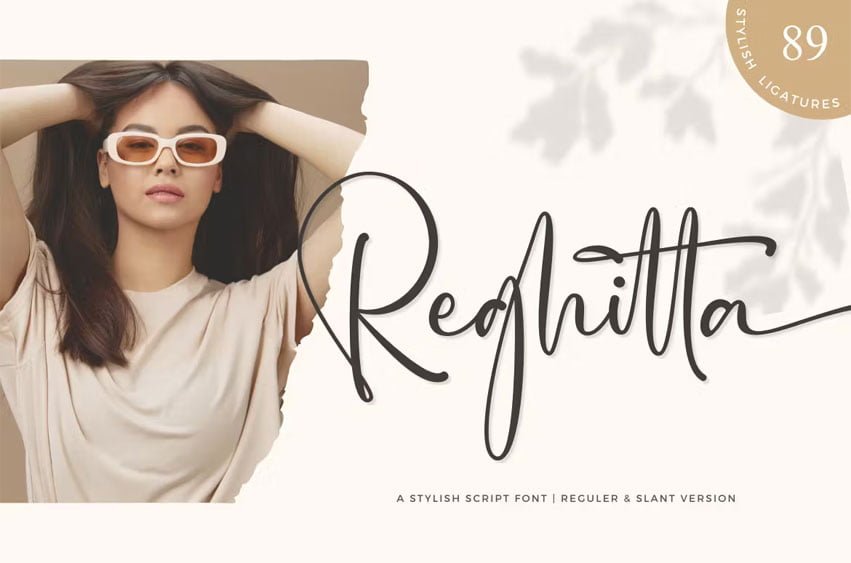
Reghitta Font is a stylish script font suitable for your design project needs, such as; wedding themes, valentine’s themes, social media posts, quotes, overlays on images, tagline logos, posters, print needs, website banners, and more.
- A set of uppercase and lowercase glyphs
- Number, symbol, and punctuation
- Alternates and Ligatures
- Slant version